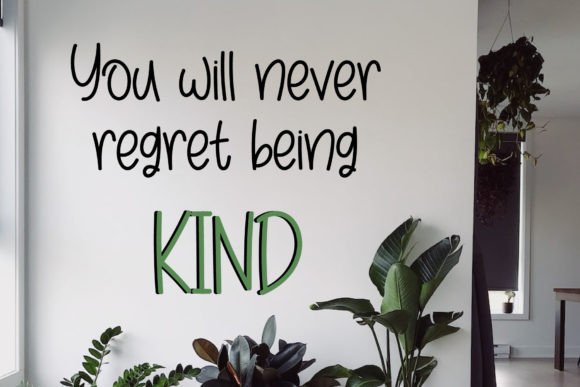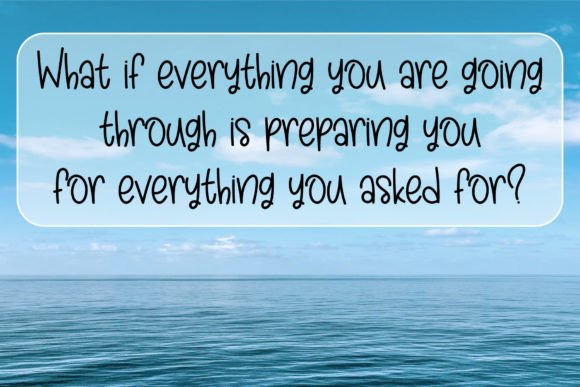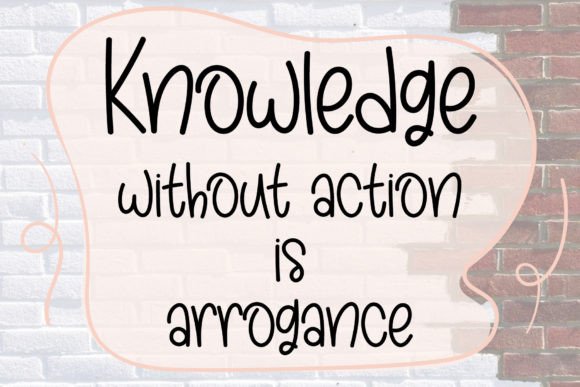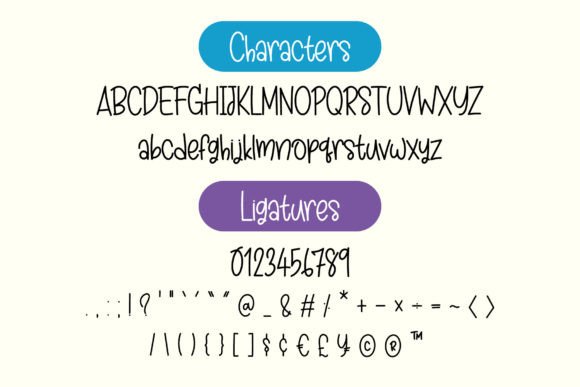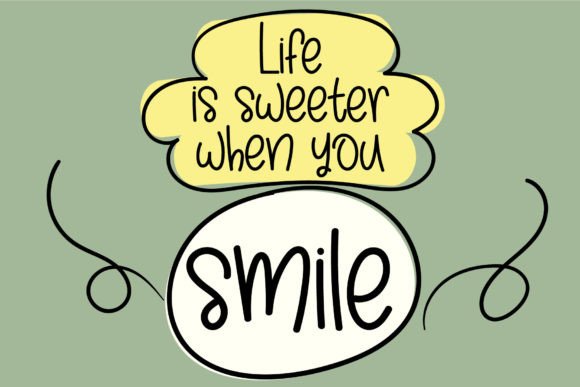
The Joy of Extinction Font: A Designer’s New Best Friend
I still remember the design project that led me to discover the Extinction font. I was working on a branding project for a local craft fair, and I needed a font that would convey a sense of playfulness and approachability. As I scrolled through my font library, I stumbled upon Extinction, and it was love at first sight! ✨ Its casual charm and joyful vibe instantly resonated with my design aesthetic.
- ✅ Readability: Extinction is incredibly easy to read, even at smaller font sizes, making it perfect for body text or captions.
- ✅ Versatility: This font is chameleon-like, adapting seamlessly to various design contexts, from busy backgrounds to standalone headlines.
- ✅ OpenType Features: Extinction supports a range of OpenType features, including stylistic alternates and glyphs, giving you plenty of creative options.
- ✨ Aesthetic: The font’s down-to-earth, handwritten feel adds a touch of warmth and personality to any design.
While Extinction is an excellent font, it’s not without its quirks. ⚠️ Some users may find that the font’s casual nature makes it less suitable for very formal or corporate designs. Additionally, the font’s simplicity can make it less attention-grabbing when used as a standalone headline without sufficient styling.
For example, I once used Extinction for a client’s luxury brand campaign, and while it worked well for the packaging, it didn’t quite fit the tone for their high-end website. 🤔 It’s essential to consider the font’s personality and your design goals before making a final decision.
The Story Behind Extinction Font
Extinction font was designed with the intention of creating a friendly, approachable typeface that would bring joy to designers and readers alike. The designer’s goal was to craft a font that would feel like a warm hug – comforting, familiar, and inviting. While the font’s name might seem ominous, its purpose is quite the opposite: to bring a sense of delight and playfulness to the world of typography.
| Author | Wanida Toffy |
Q: Is Extinction font suitable for body text?
A: Absolutely! Extinction font is highly readable, making it an excellent choice for body text.
Q: Does Extinction font support OpenType features?
A: Yes, Extinction font supports a range of OpenType features, including stylistic alternates and glyphs.